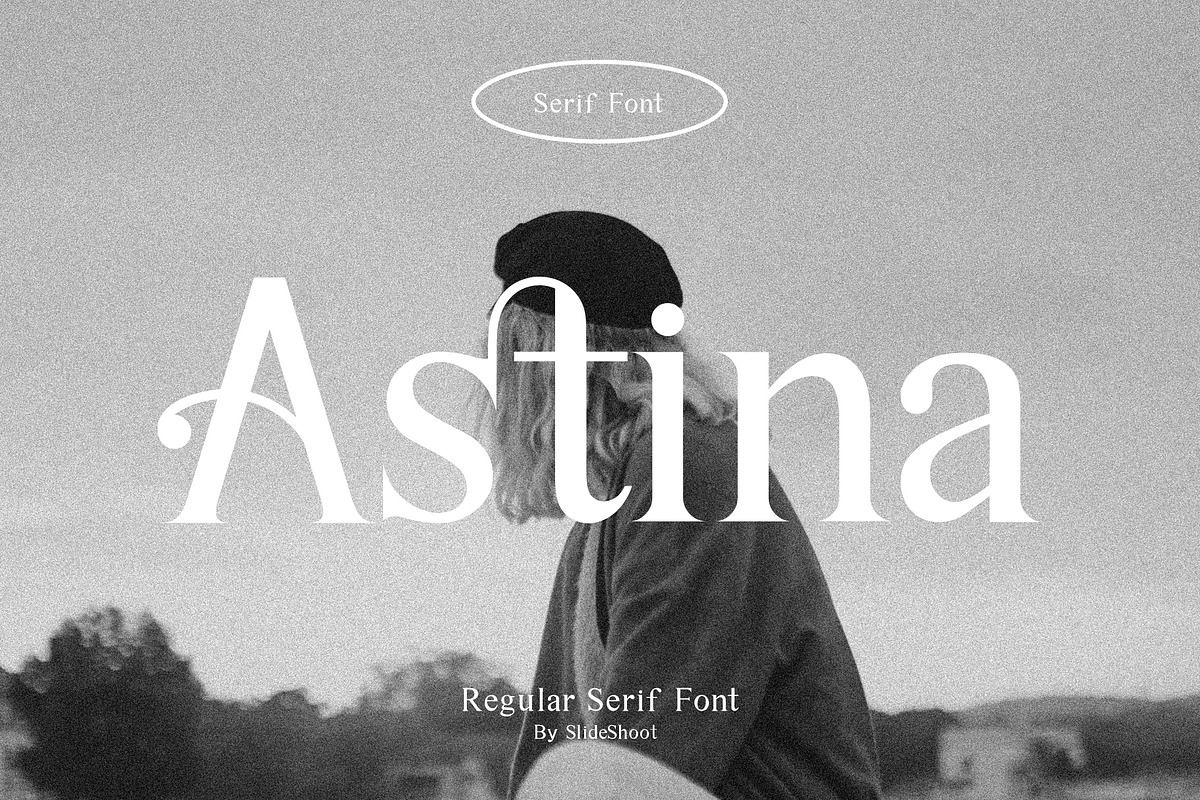
Astina Serif Font Free Download
Please note, you must purchase this font for commercial use. However, you can easily download Astina Serif Font Free Download for personal use and testing purposes. Astina Serif Font is a sophisticated and elegant serif typeface, designed to bring a refined and timeless look to your projects. Perfect for high-end branding, editorial design, logos, invitations, and more, this font combines classic serif elements with a modern flair. The clean lines and graceful letterforms make Astina Serif Font Free Download ideal for creating polished, professional designs. Whether you're working on a luxury brand, a chic event invitation, or a stylish logo, Astina Serif Font Free Download will elevate your typography. Download Astina Serif Font Free Download today and explore its potential before opting for a commercial license.